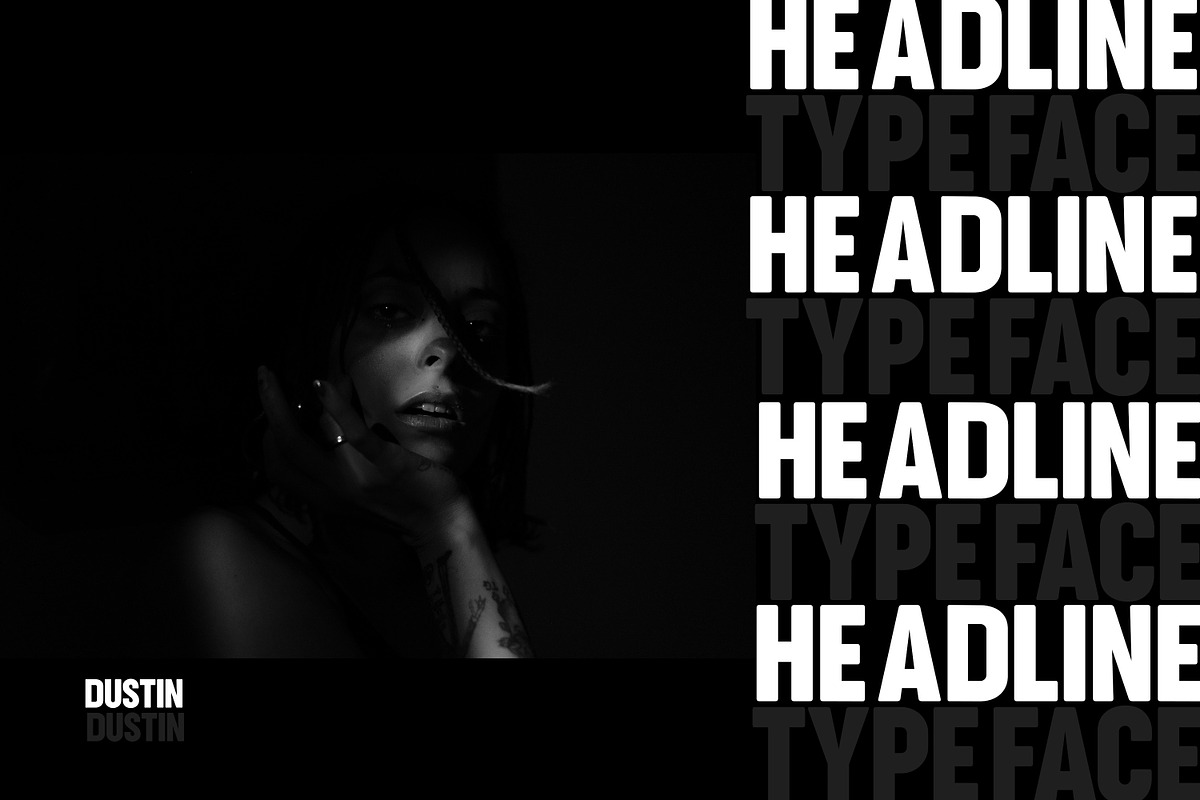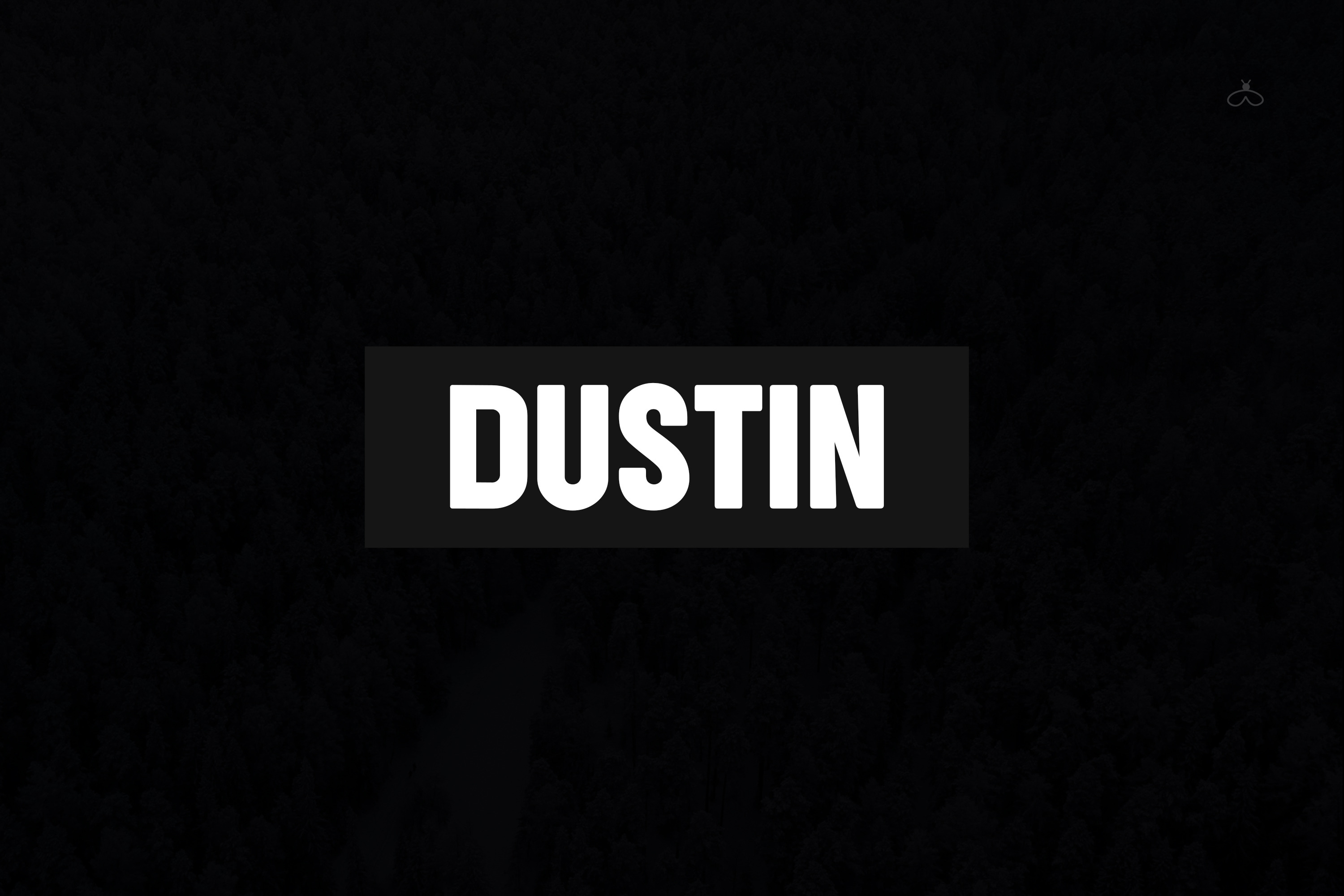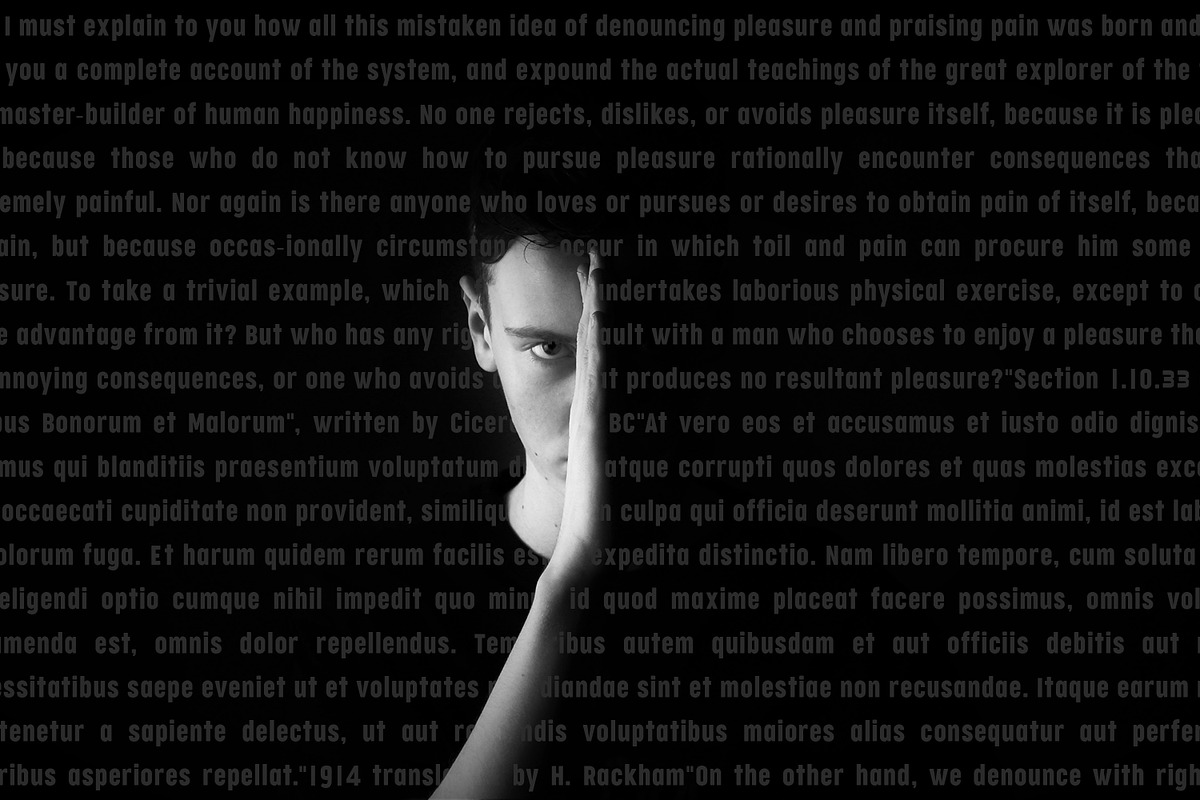
Dustin Modern Typeface
Dustin is a cool, bold and modern sans serif font. It can easily be matched to an incredibly large set of projects, so add it to your creative ideas and notice how it makes them stand out!